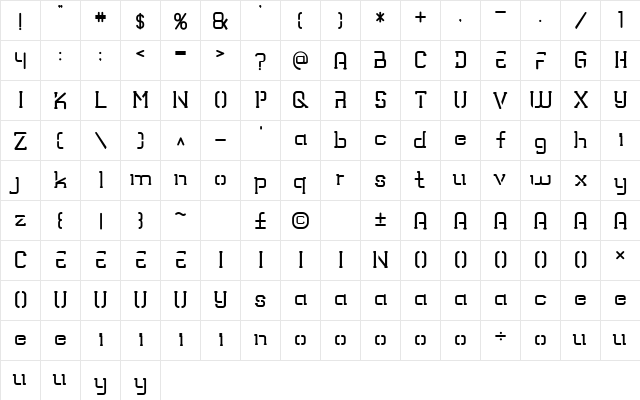
TRUMANS Stencil
| Style | Stencil |
| Foundry | Edric Studio |
| Designer | Deyan |
Design Context for TRUMANS Typeface
TRUMANS borrows the utilitarian aesthetic of stencil lettering, with its characteristic cutaways and no-frills construction lending an industrial edge.
Ideal for industrial branding, streetwear, military-adjacent aesthetics, and urban signage projects.